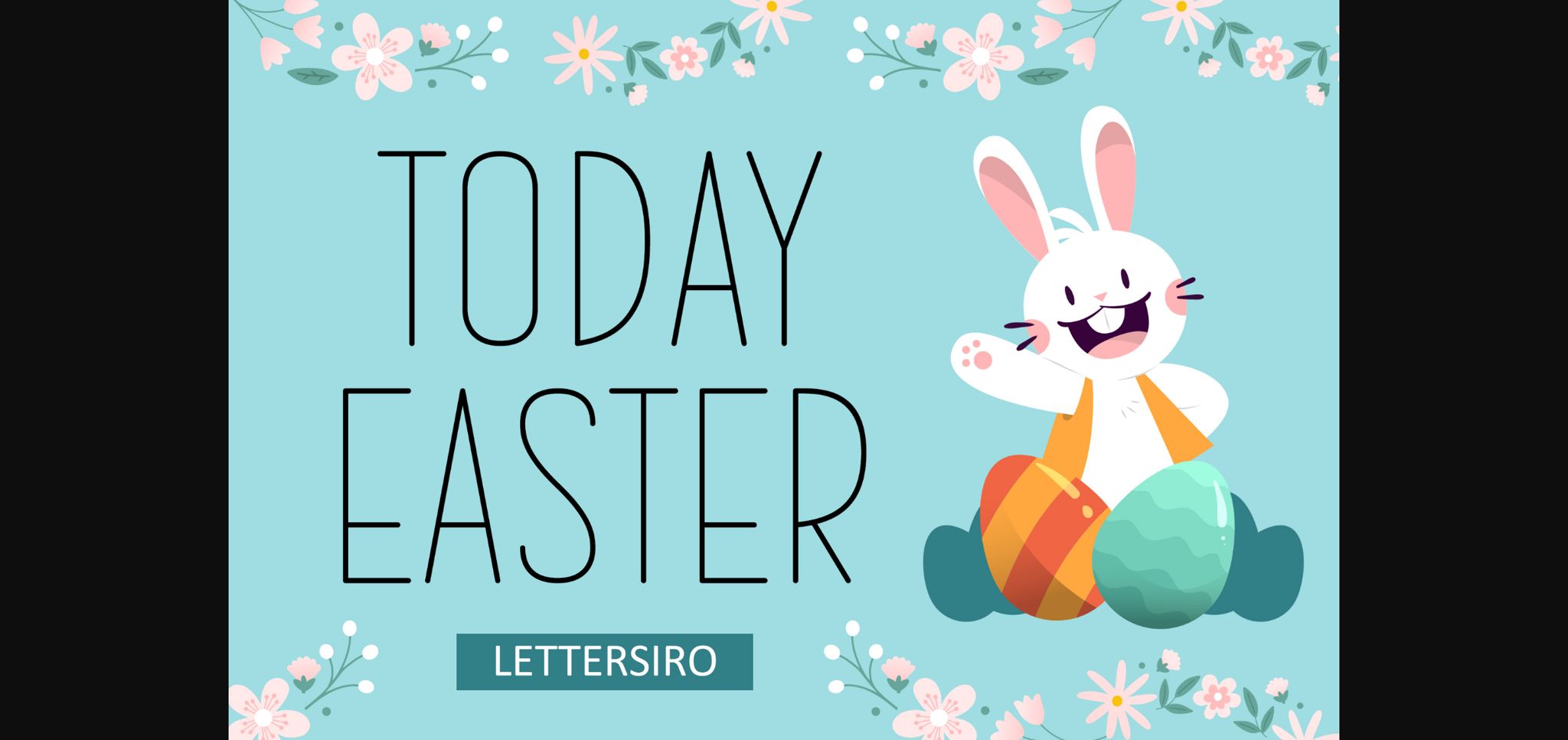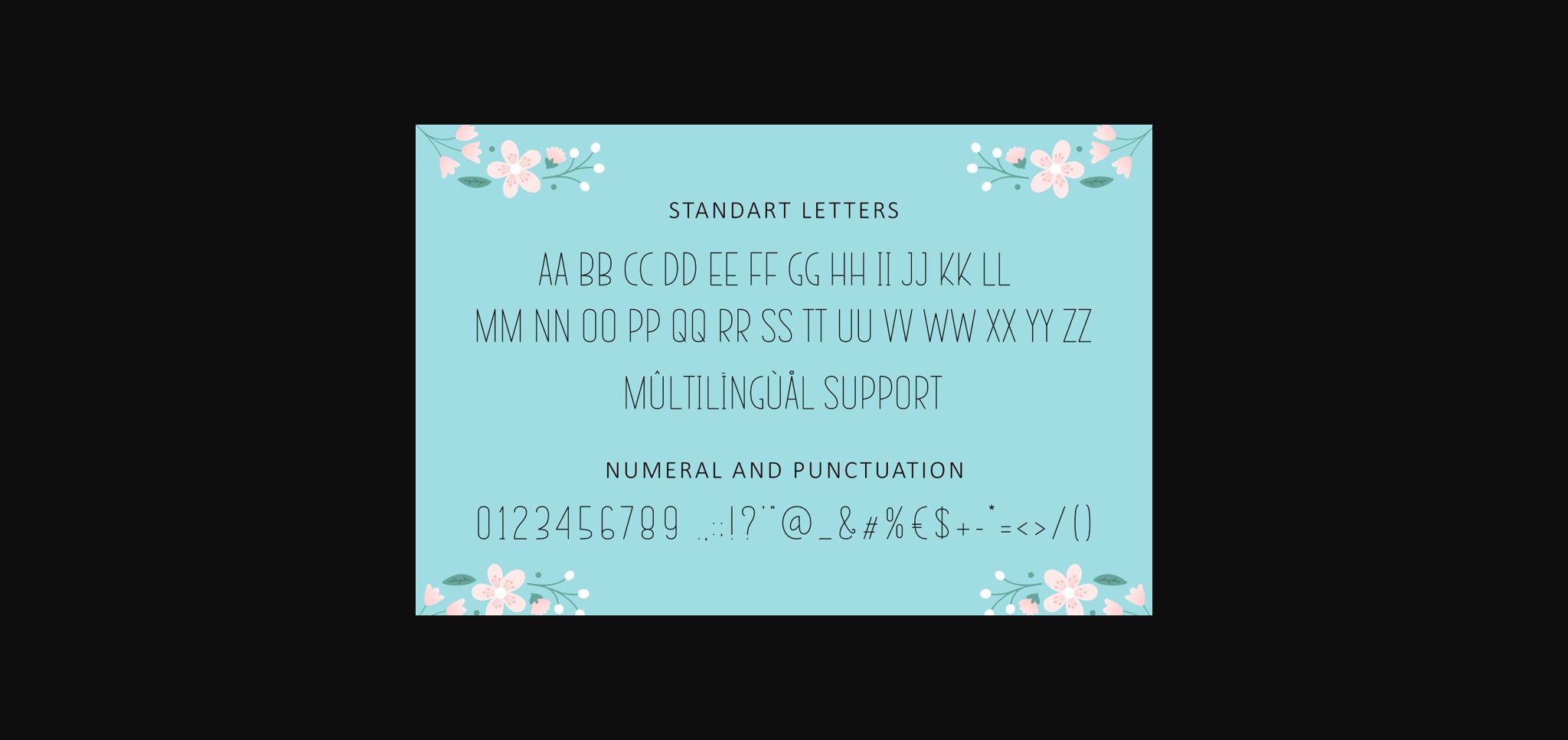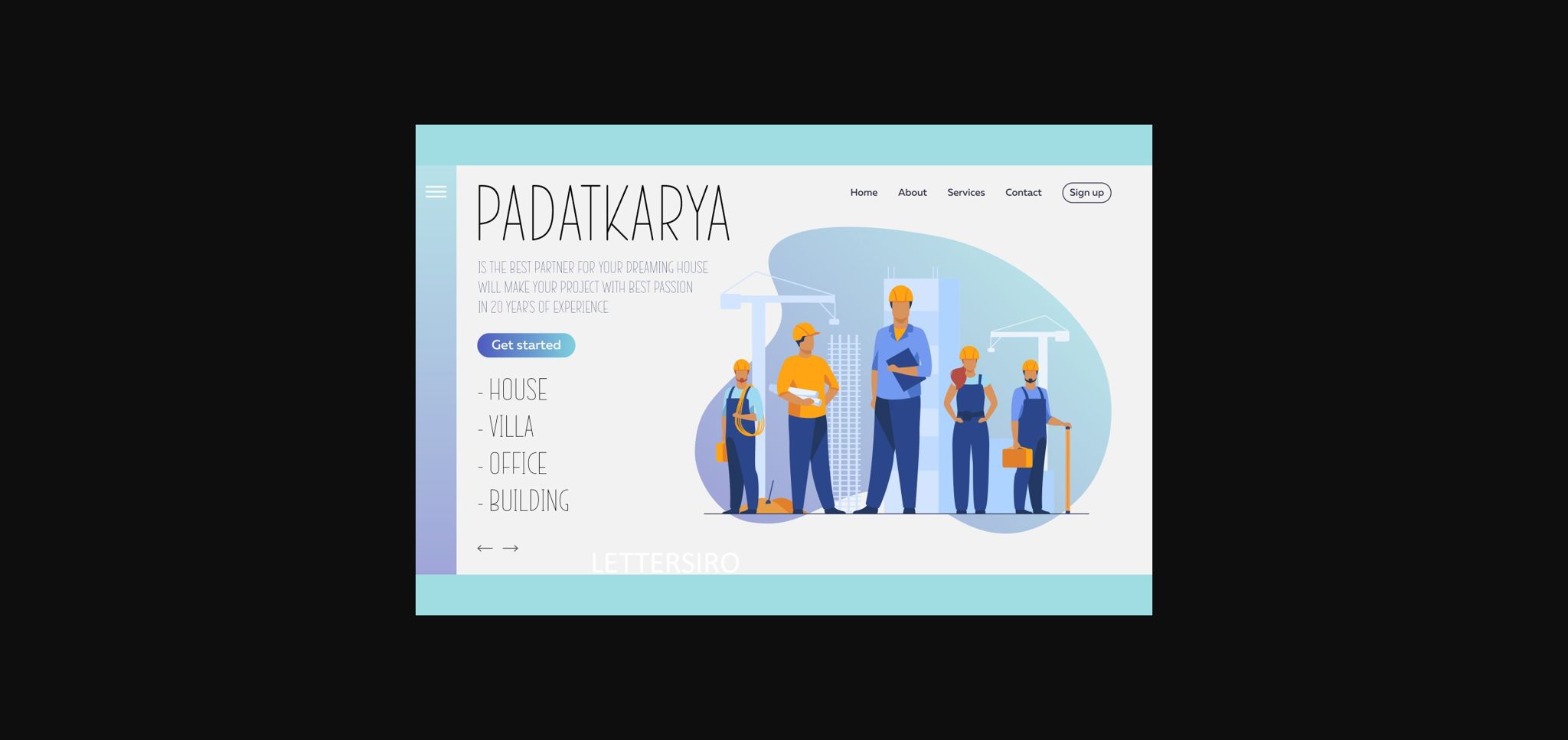
About Today Easter Font
Today Easter is a minimal and neat sans serif font. It can easily be matched to an incredibly large set of projects, so add it to your creative ideas and notice how it makes them stand out!